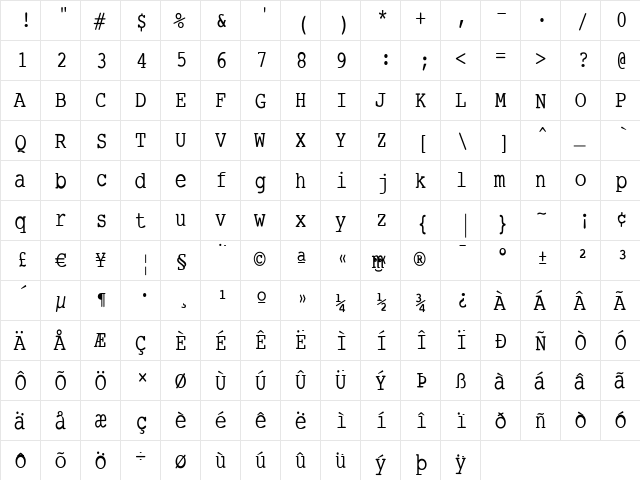
SmallTypeWriting-Medium Regular
Design Context for SmallTypeWriting-Medium Typeface
SmallTypeWriting-Medium offers clean, dependable letterforms without strong stylistic allegiance, making it a practical choice for designers who need flexibility.